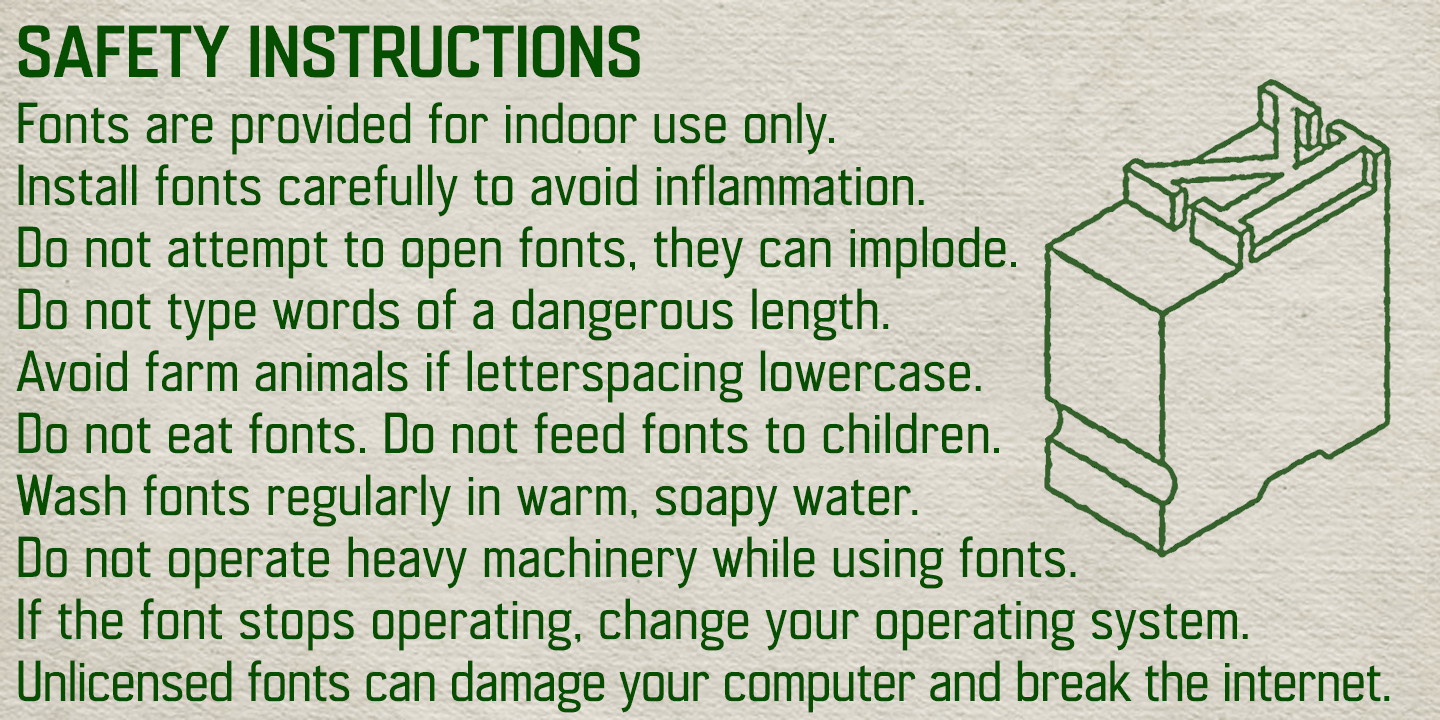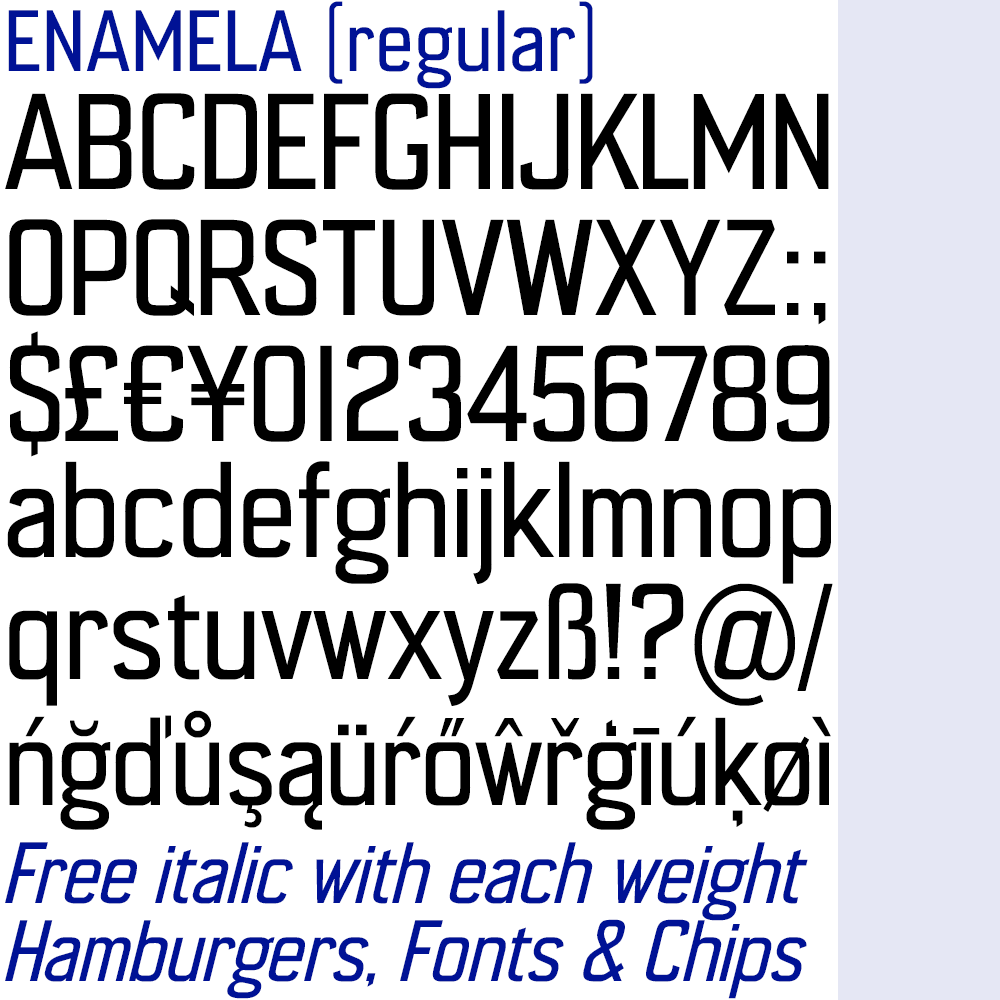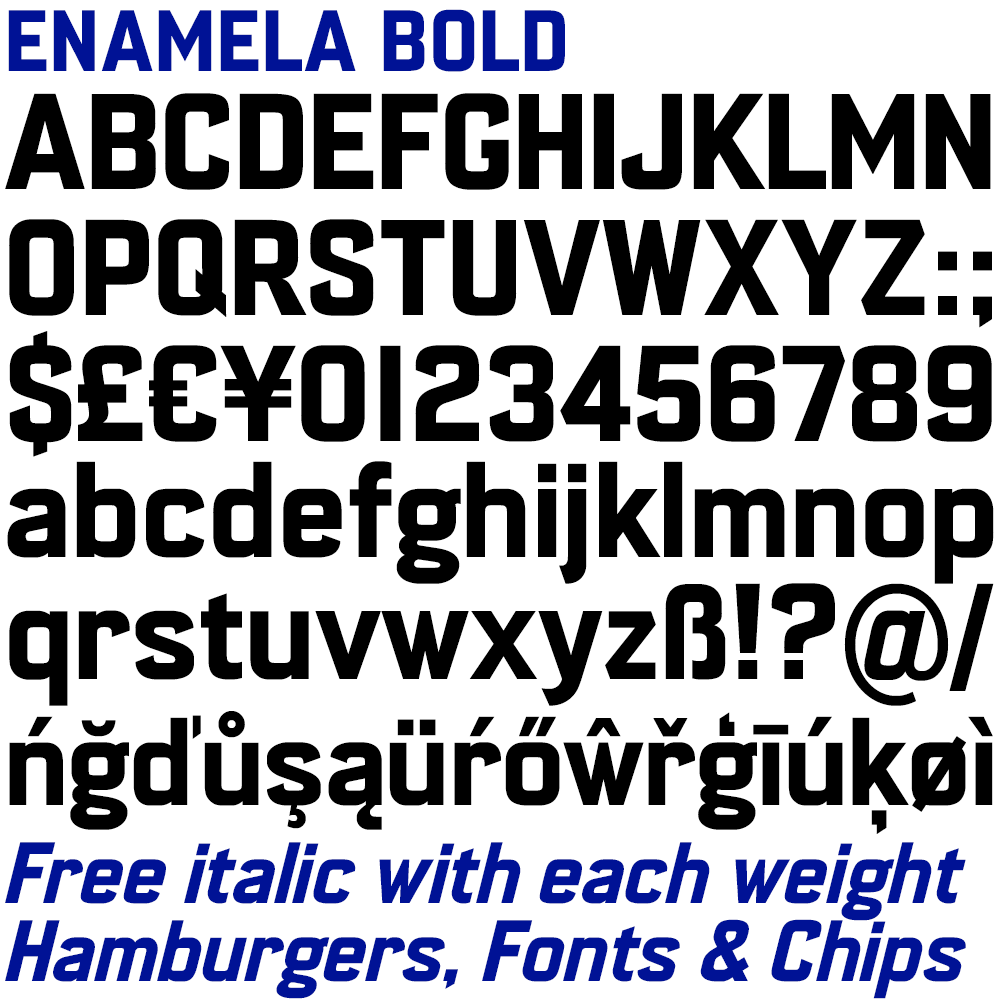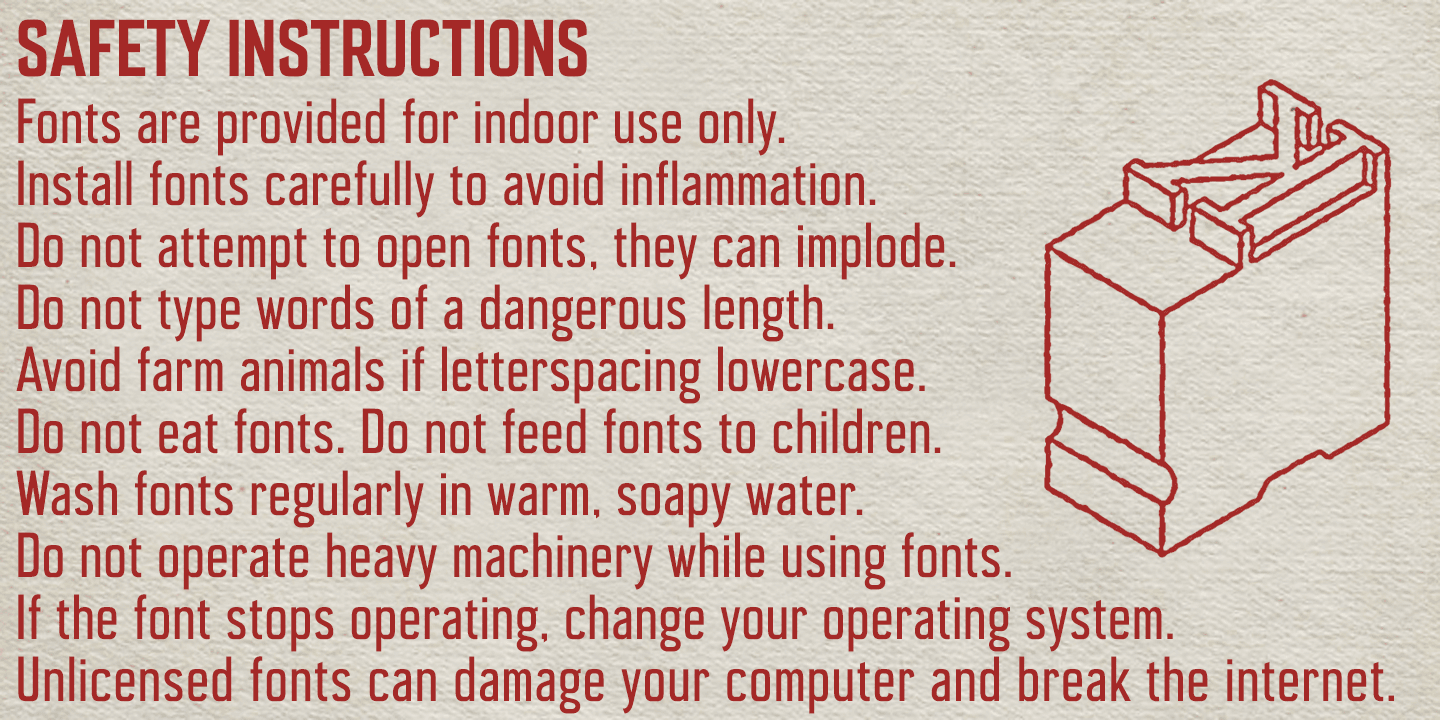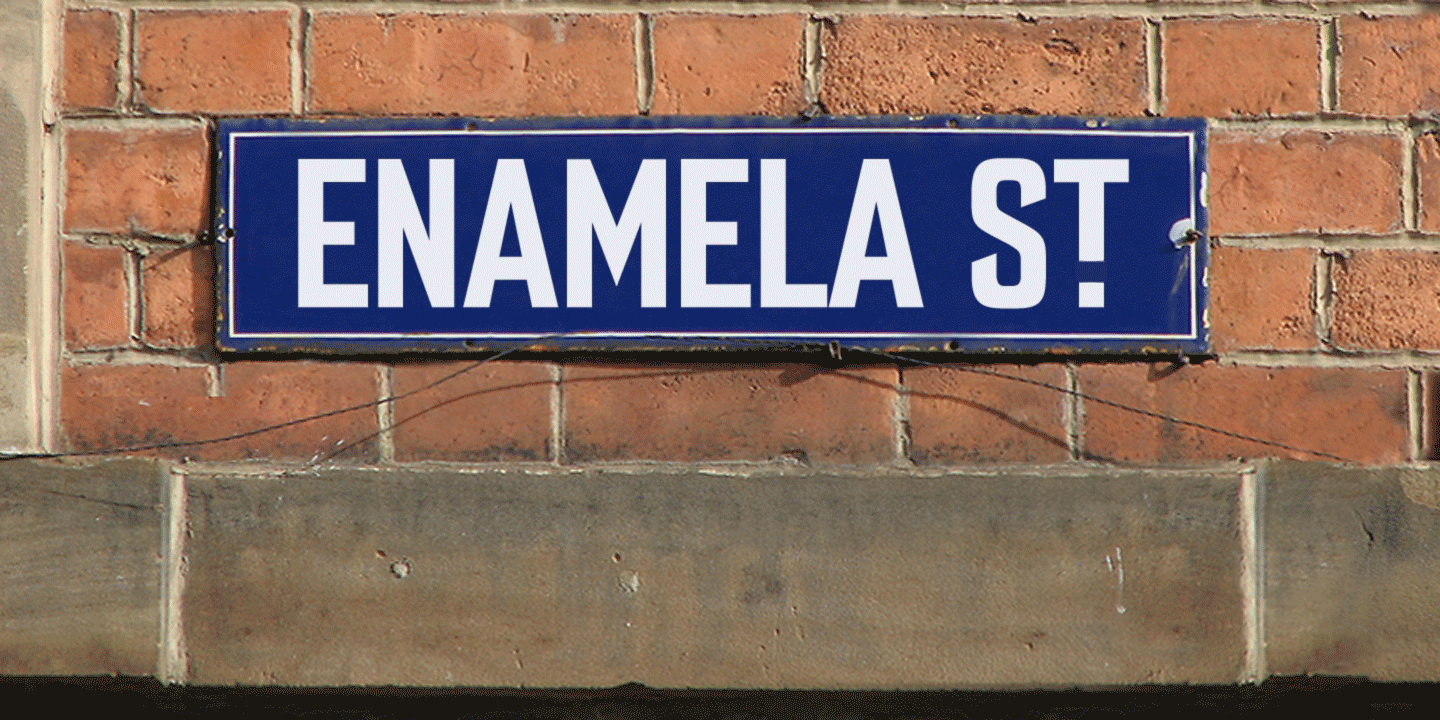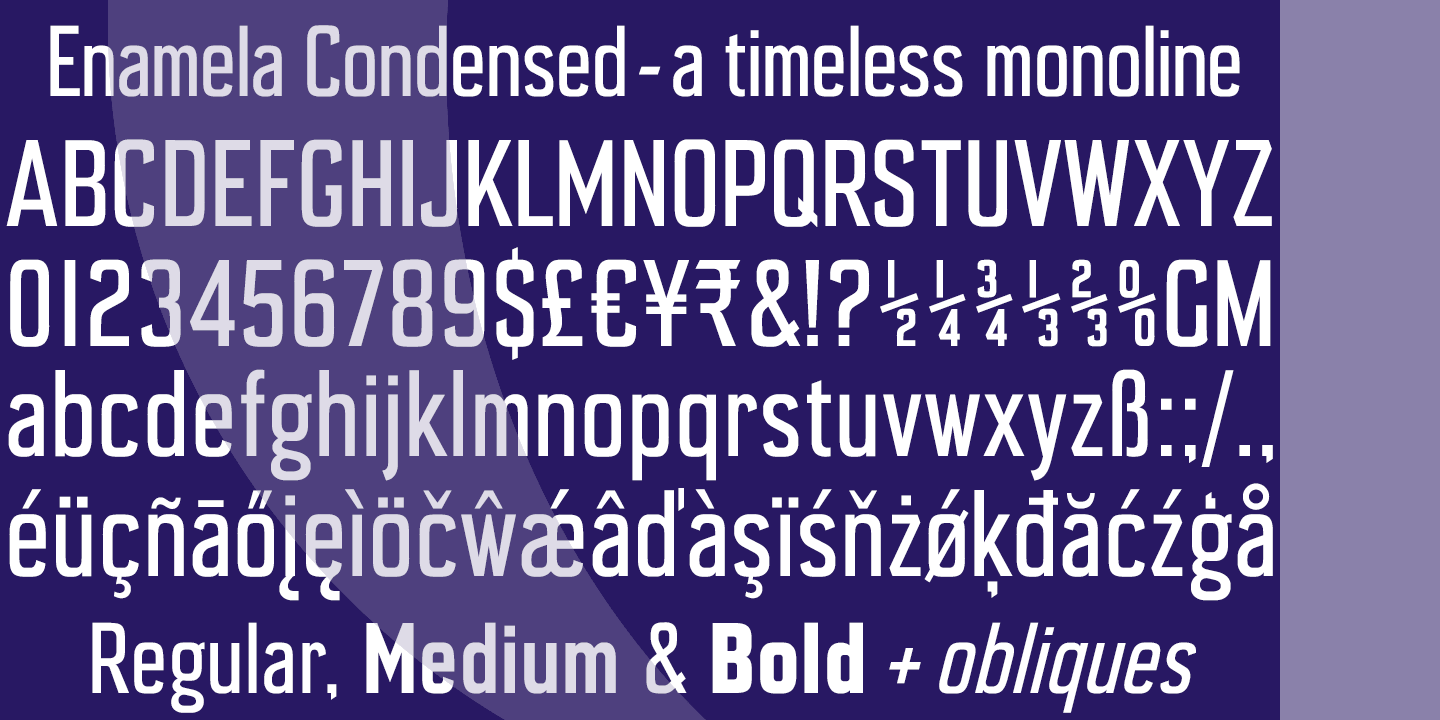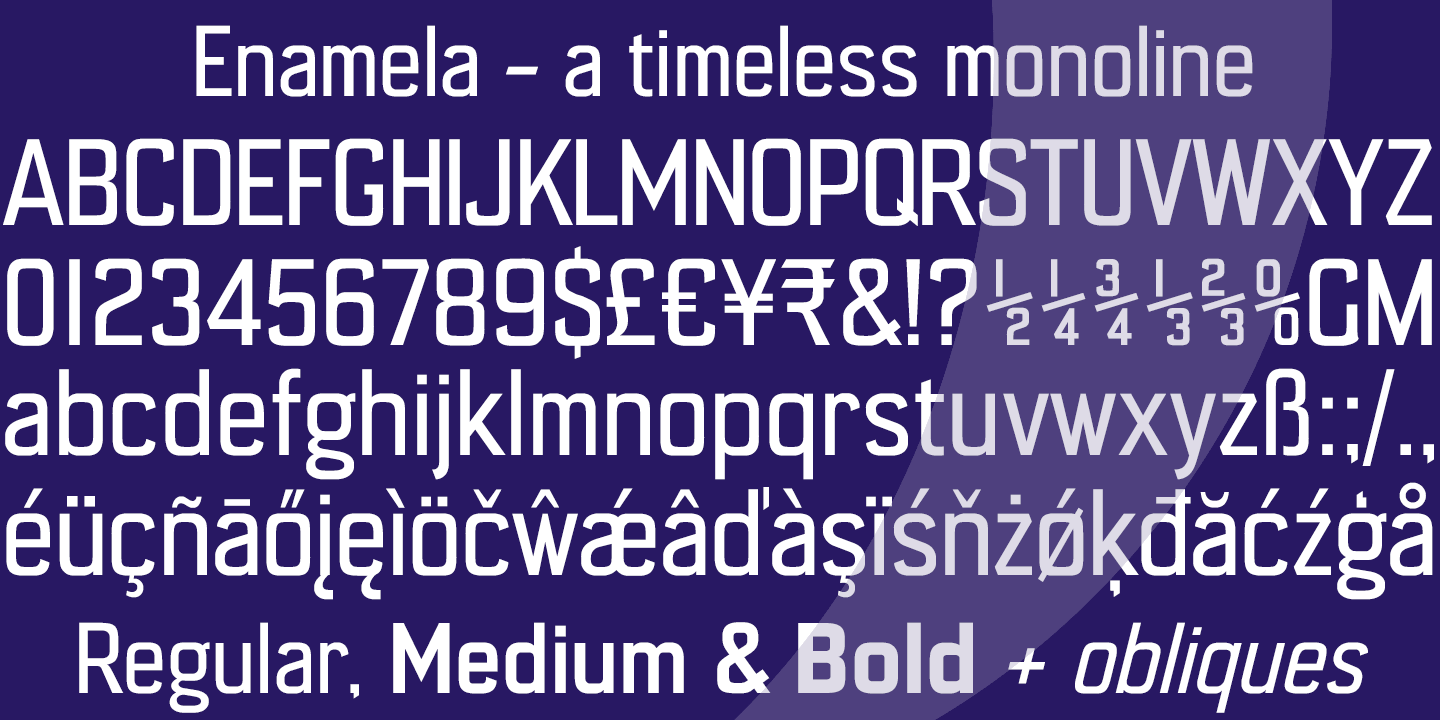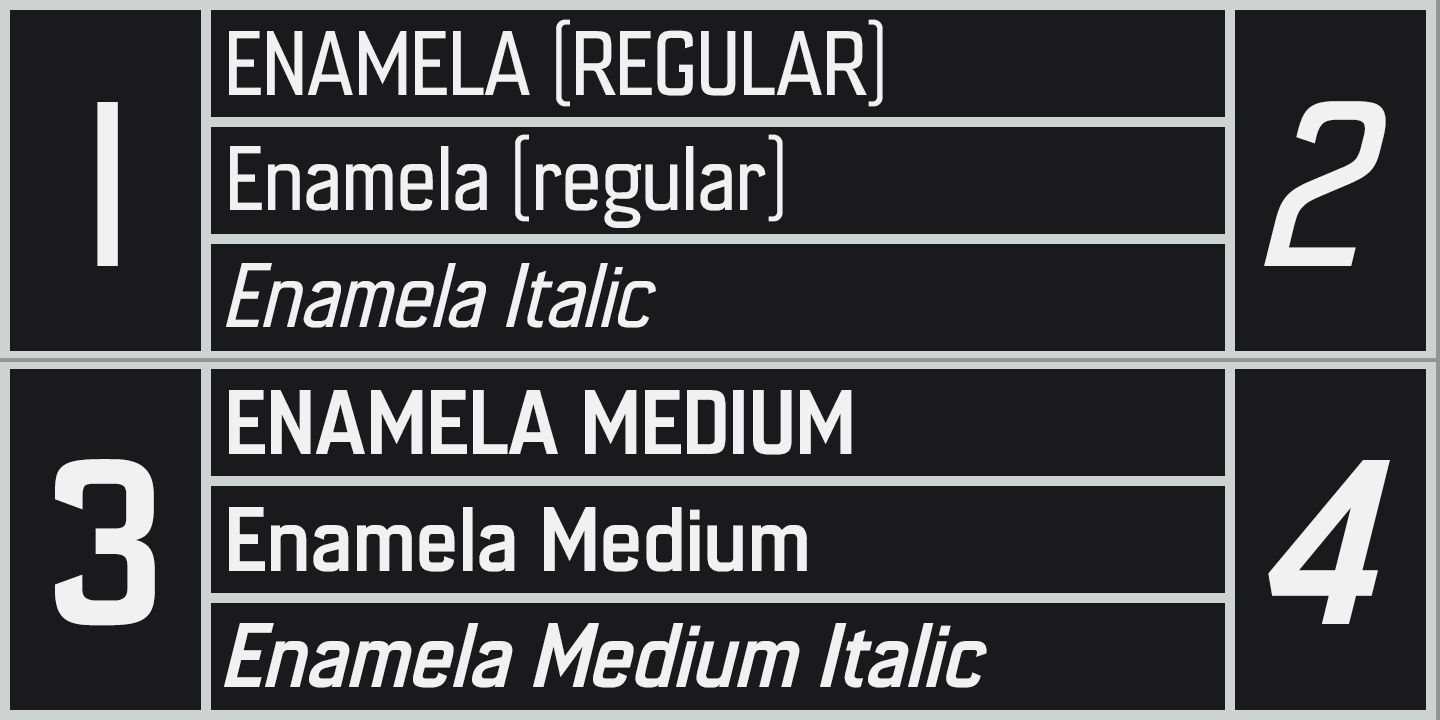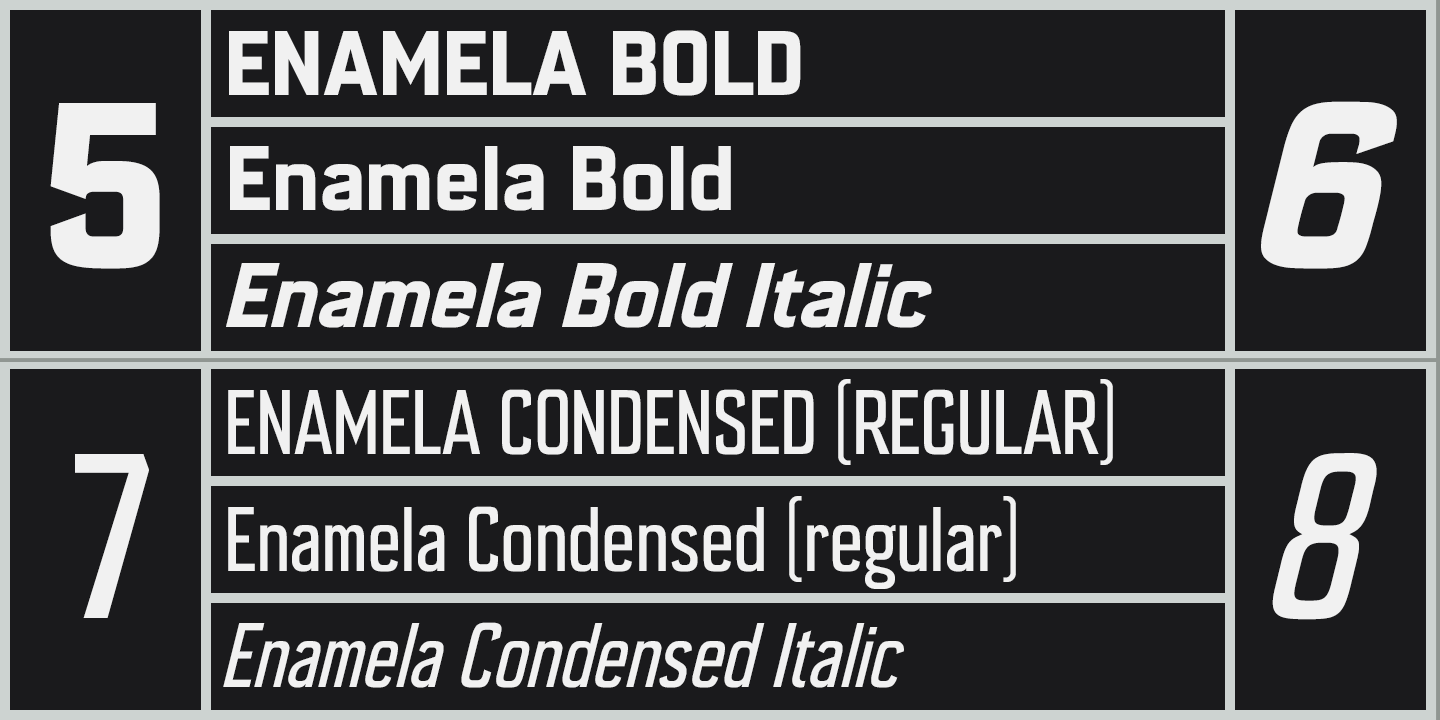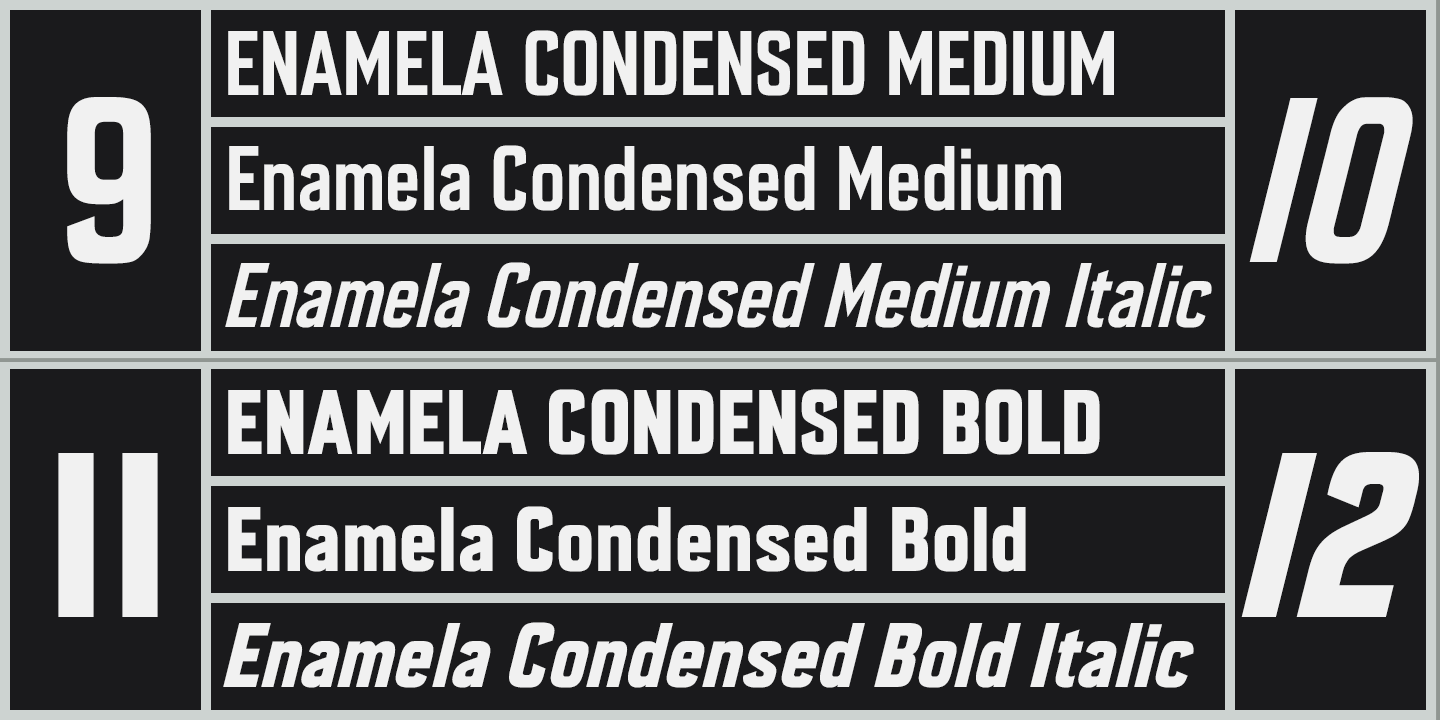
Enamela
Enamela (rhymes with Pamela) is a monoline square sans that is now available as a normal width family in addition to the original condensed version. Although rooted in the early years of sans serif type, the Enamela fonts have a timeless quality that is practical and unpretentious.
The letterforms derive from vitreous enamel signage dating from the Victorian era and widely used in Britain for street nameplates, Post Office signs, the plates on James Ludlow wall postboxes, railway signs and direction signs, as well as for circular Automobile Association wayfinding plaques throughout the first half of the twentieth century. The quirky terminals stemming from the compression of geometric type invite comparison with the Charles Wright fonts used for UK vehicle registration plates.
The Enamela and Enamela Condensed families are both available in three weights – regular, medium and bold – each supplied with a free italic (optically corrected oblique).
A commonly used alternative M with a vertex that touches the baseline is provided at the Alt-M (µ) keystroke on a Mac, or Alt-0181 on Windows. A commonly used G with a plain vertical throat, no crosspiece, is assigned Unicode FF27 (full width capital G).